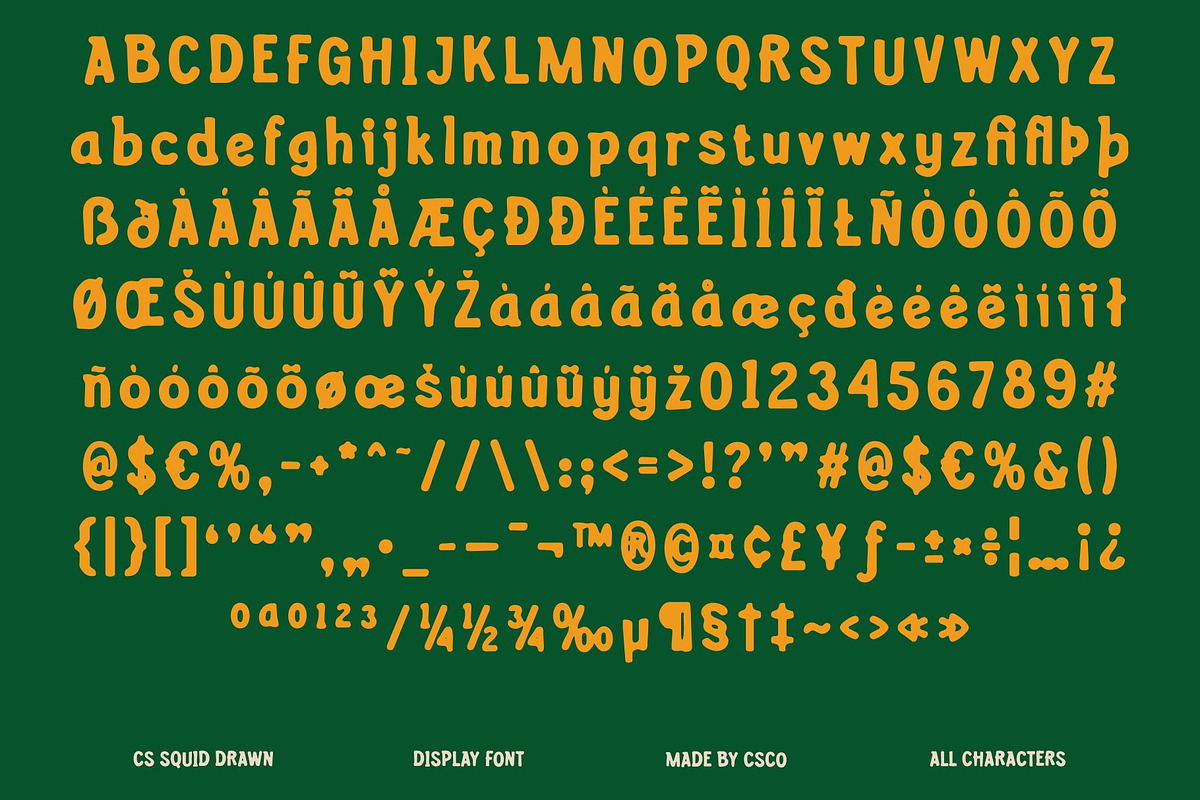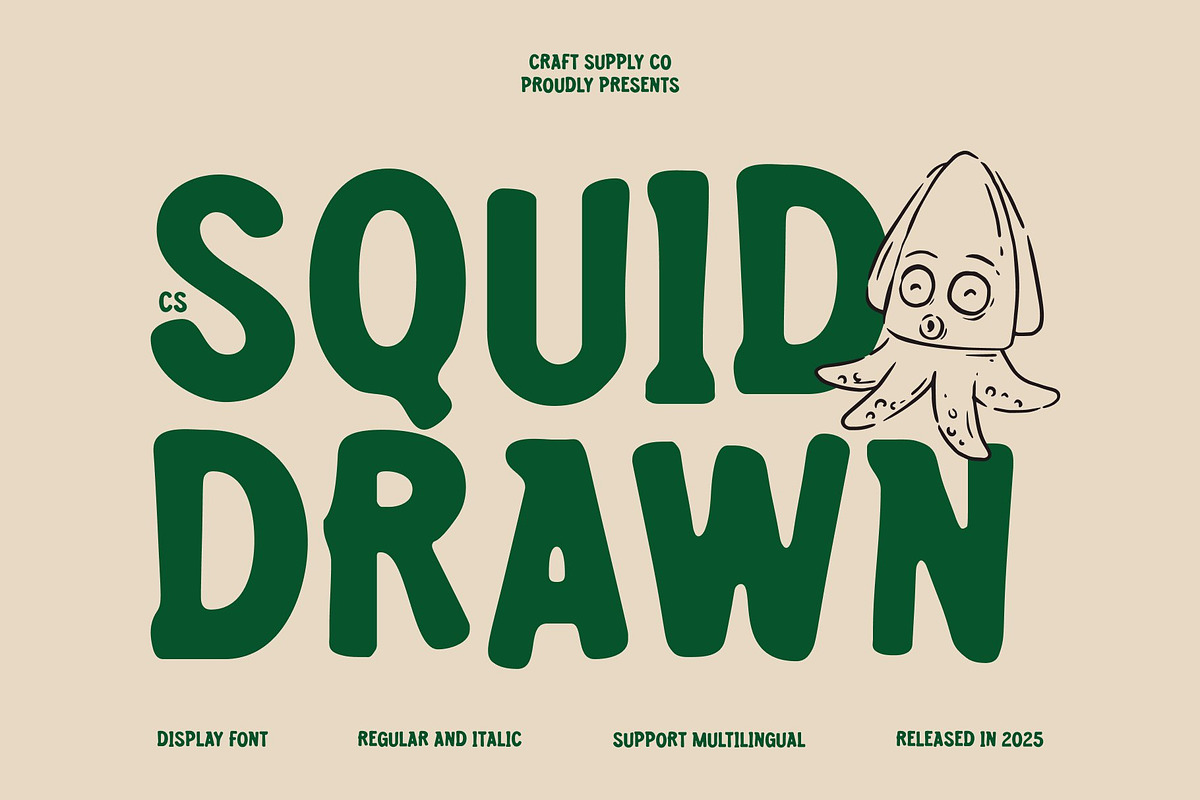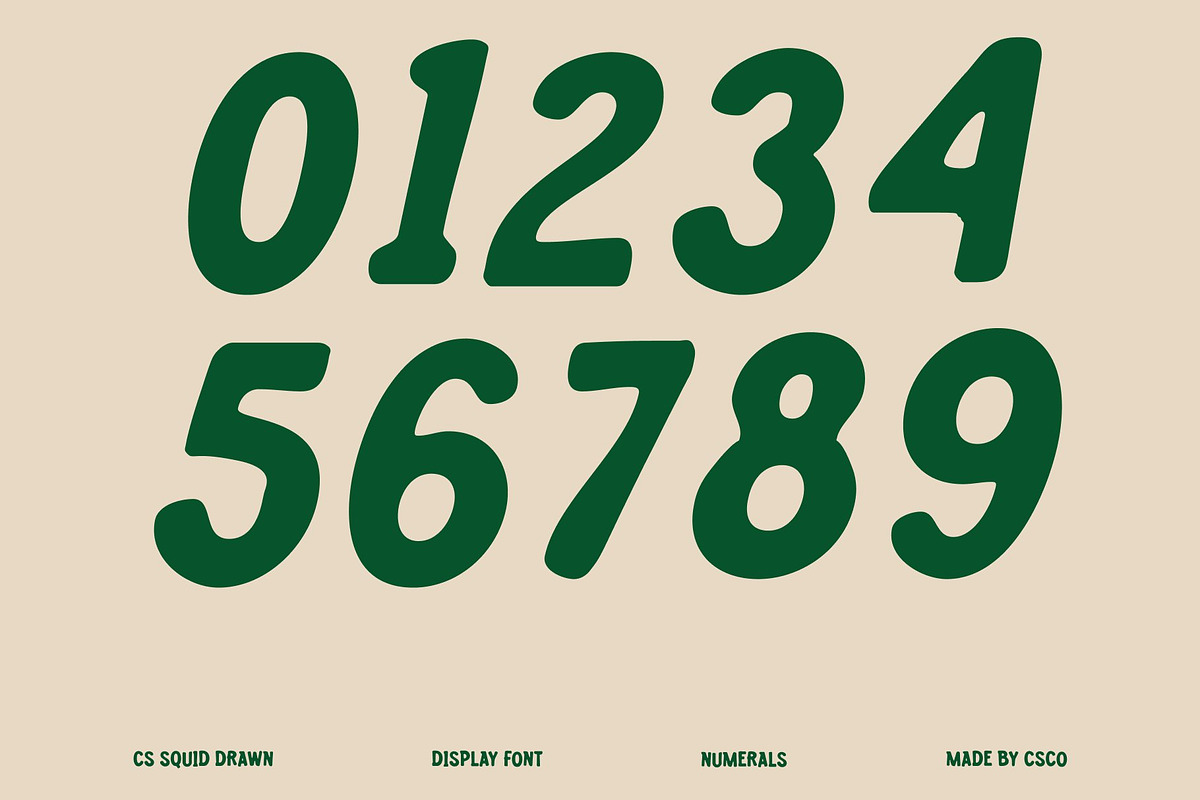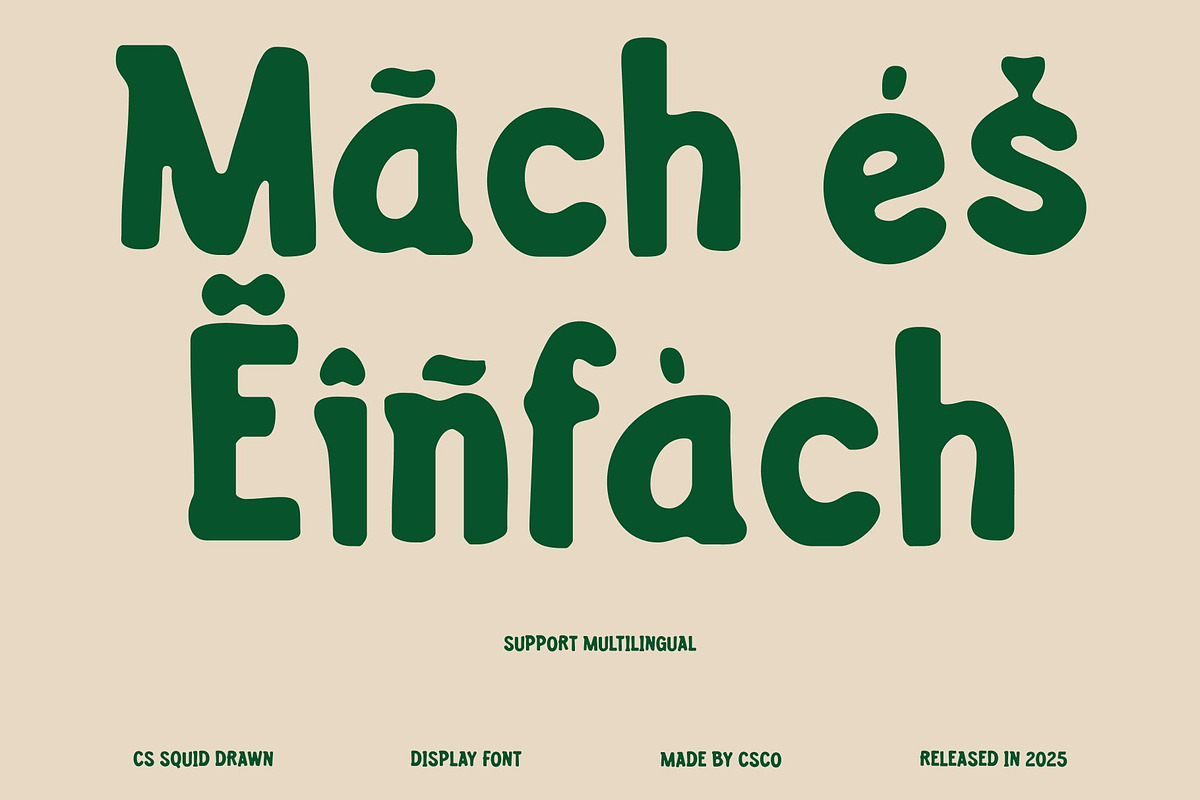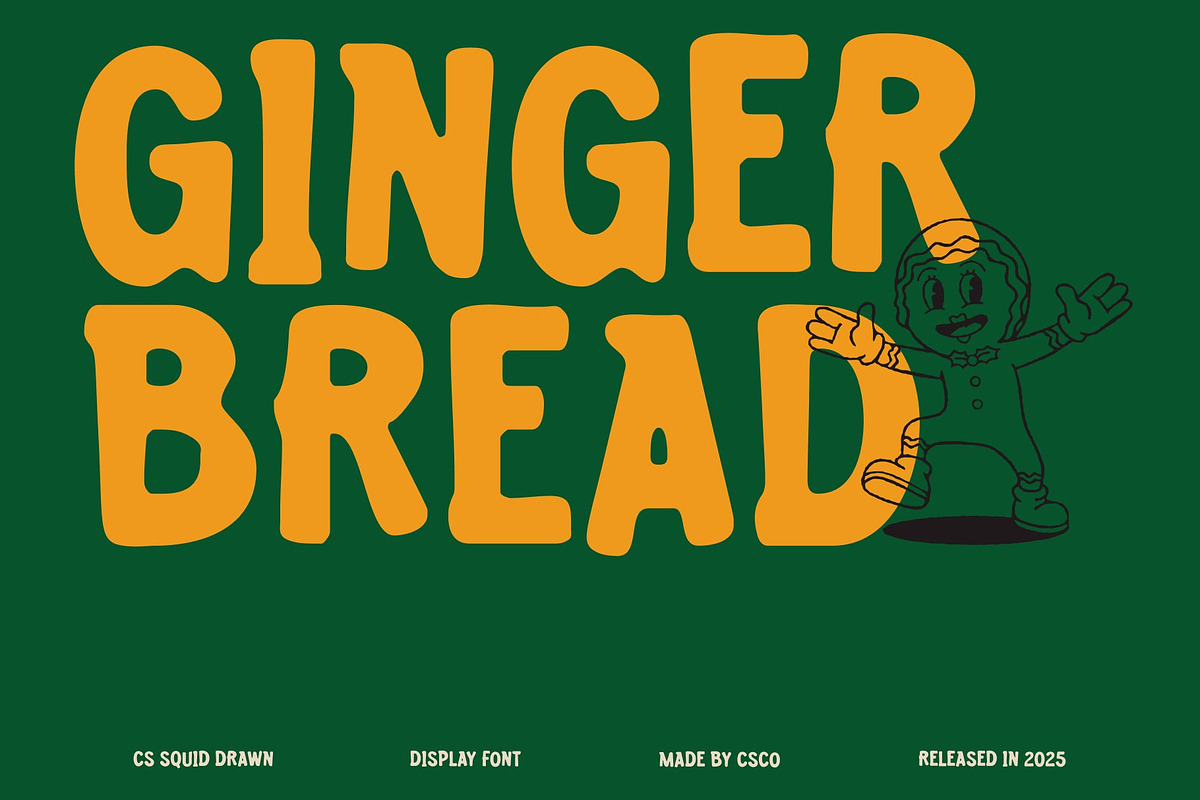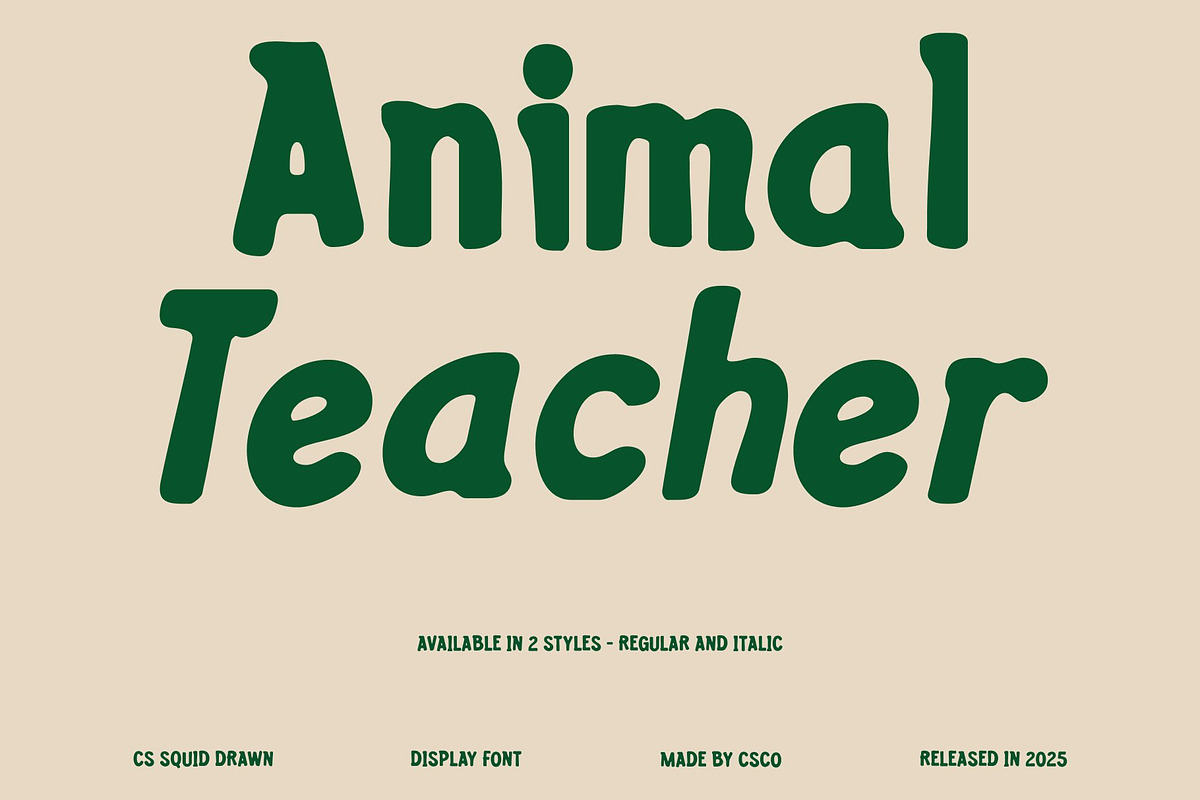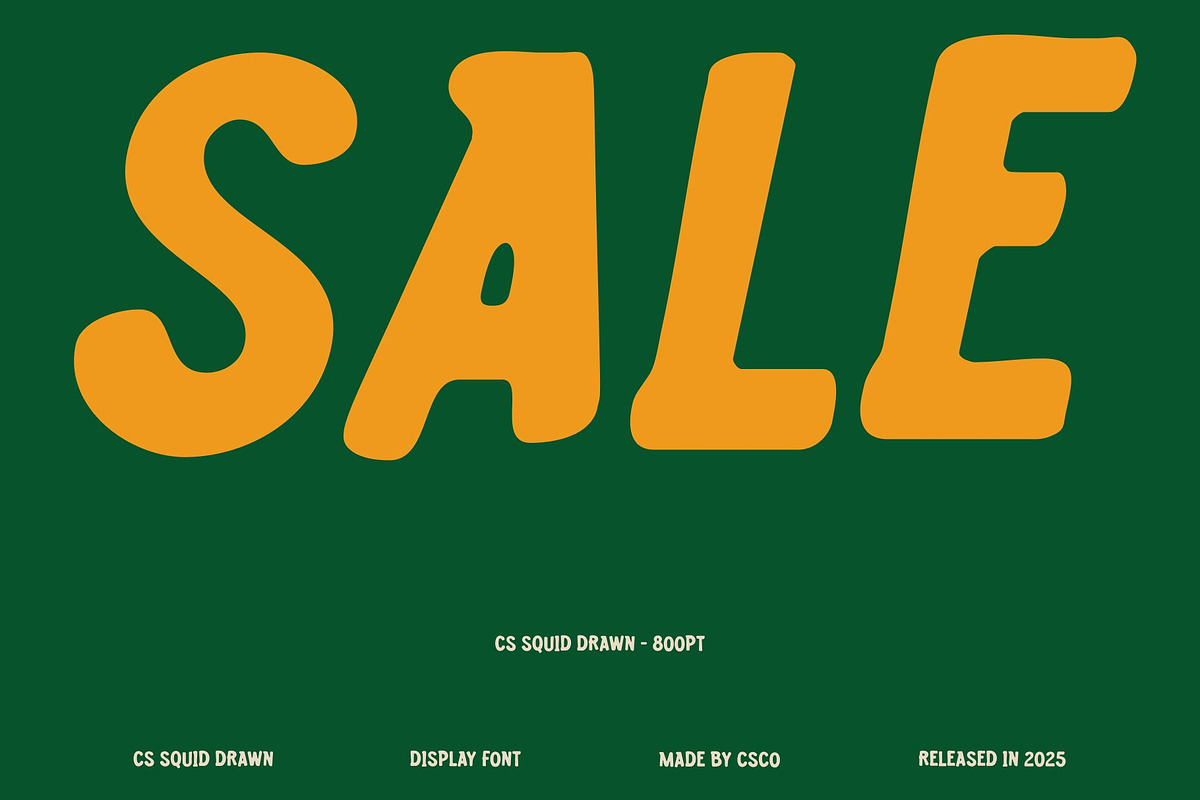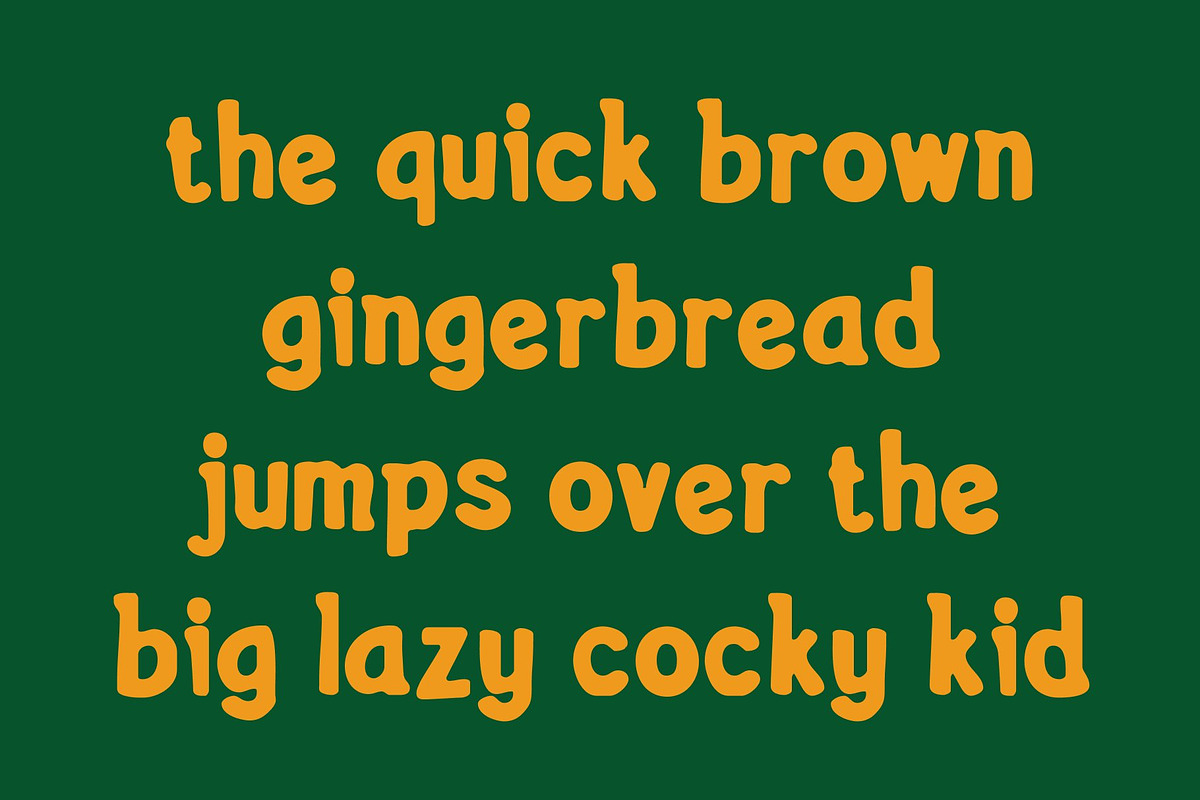
CS Squid Drawn
CS Squid Drawn – Fun and Expressive Hand-Drawn Font
Playful Display Font with Artistic Texture This is a playful and energetic display font featuring bold strokes and friendly, approachable shapes. The drawn effect adds a natural, handcrafted texture, giving every letter a lively, artistic personality that instantly captures attention. This font brings a sense of fun and creativity to any design project.
Friendly Shapes for Engaging Design The bold, rounded forms of make it highly readable while maintaining a cheerful, informal style. Its friendly shapes are ideal for youth-focused branding, casual communications, and projects that aim to convey warmth, creativity, and approachability.
Dynamic Drawn Texture for Unique Character Each character in carries a handcrafted, drawn texture that enhances visual interest and uniqueness. The organic imperfections and natural lines create a dynamic, artistic quality that sets your designs apart, giving them an authentic, handmade feel.
Versatile for Creative Applications This font adapts seamlessly across a variety of projects, from greeting cards and posters to social media graphics and playful branding. Its bold strokes and artistic detailing make it perfect for designs that demand both impact and personality, ensuring your text stands out with charm and creativity.
- CS Squid Drawn Regular
- CS Squid Drawn Italic